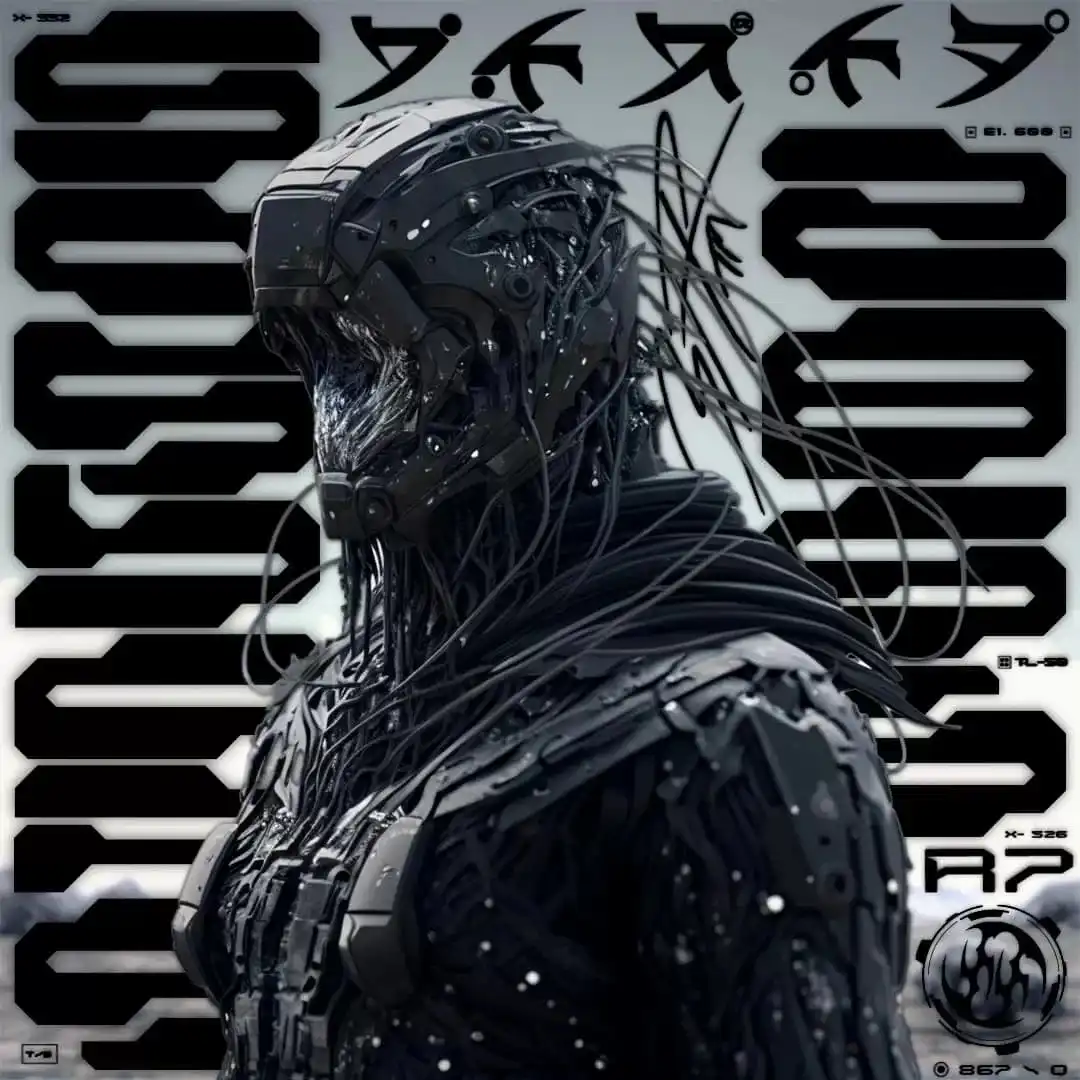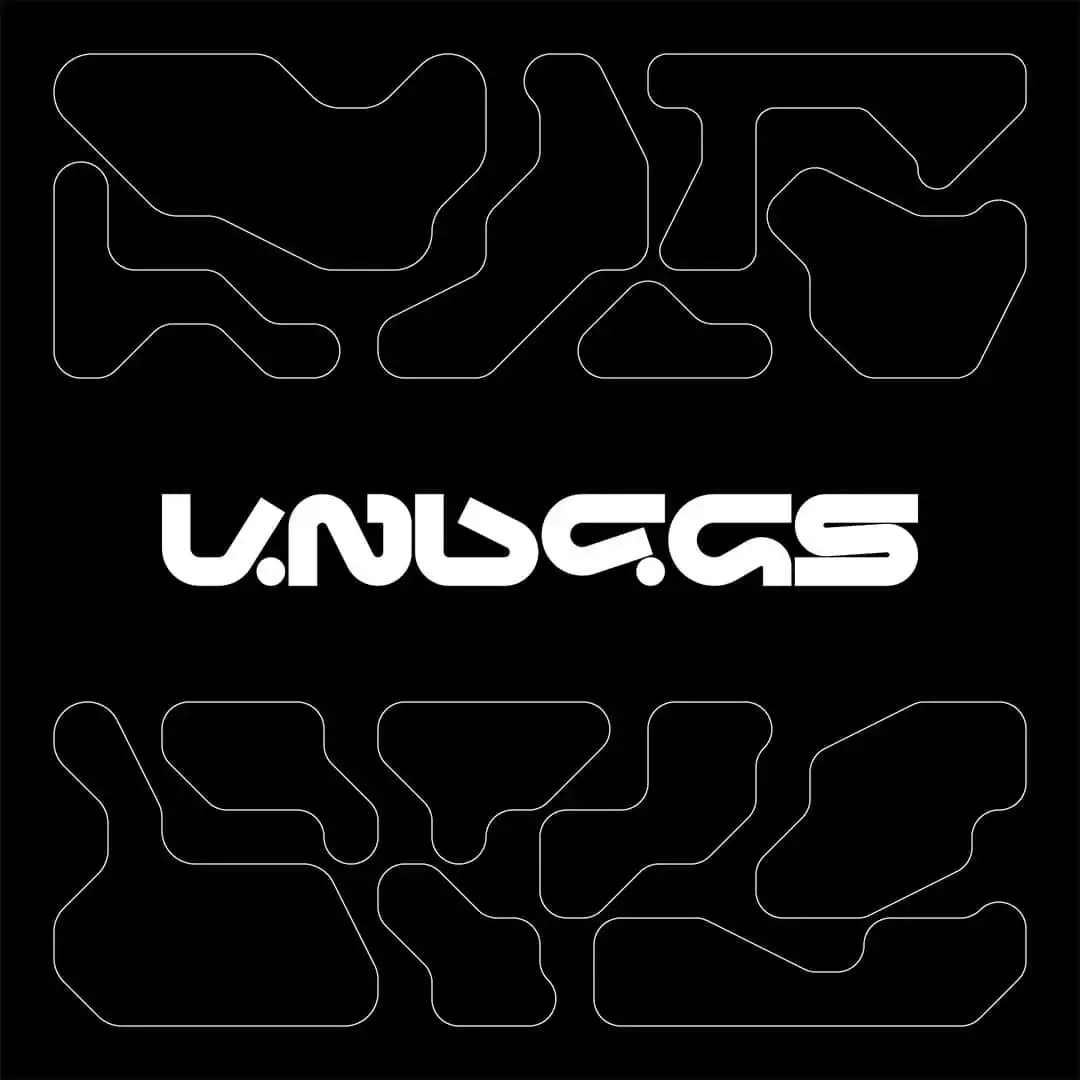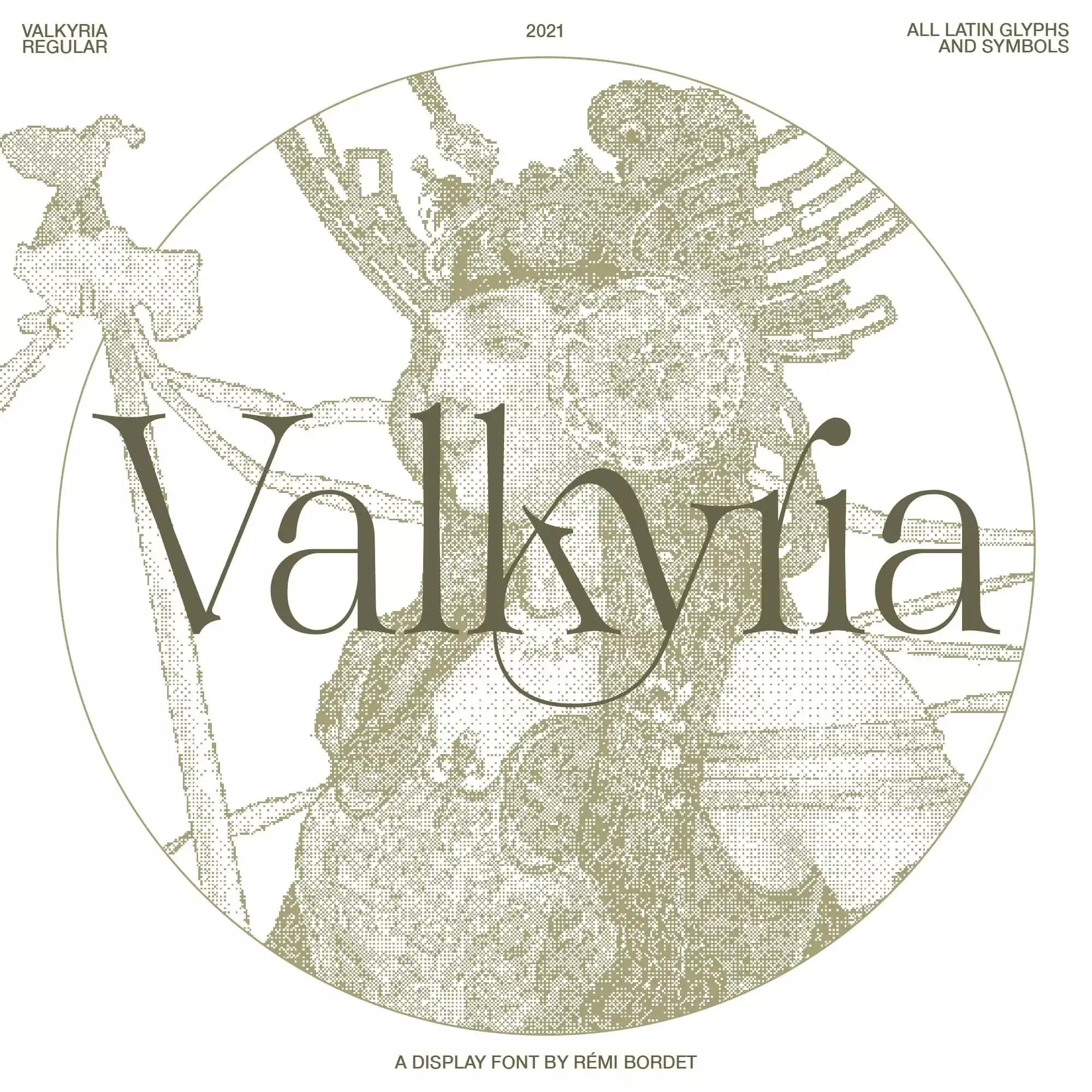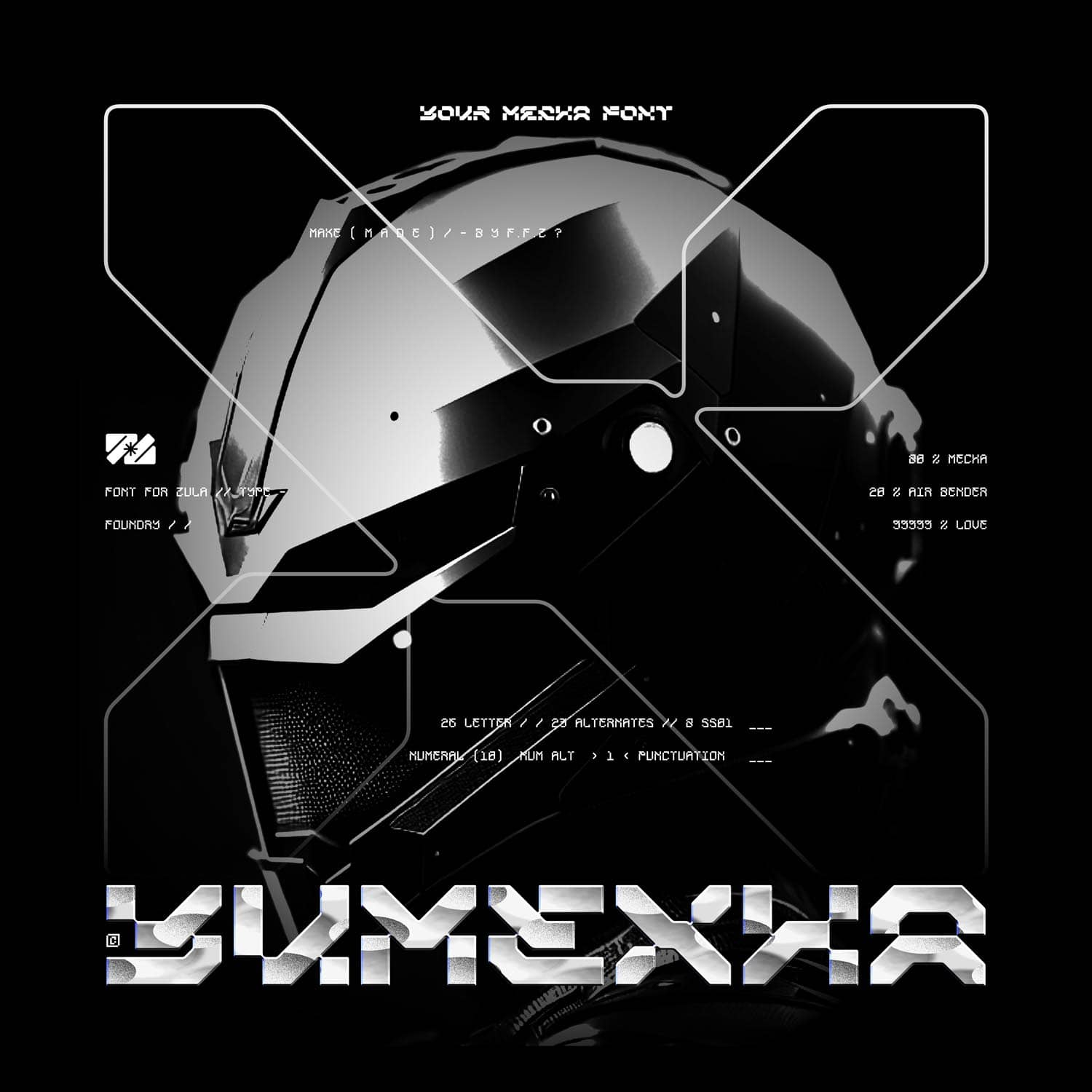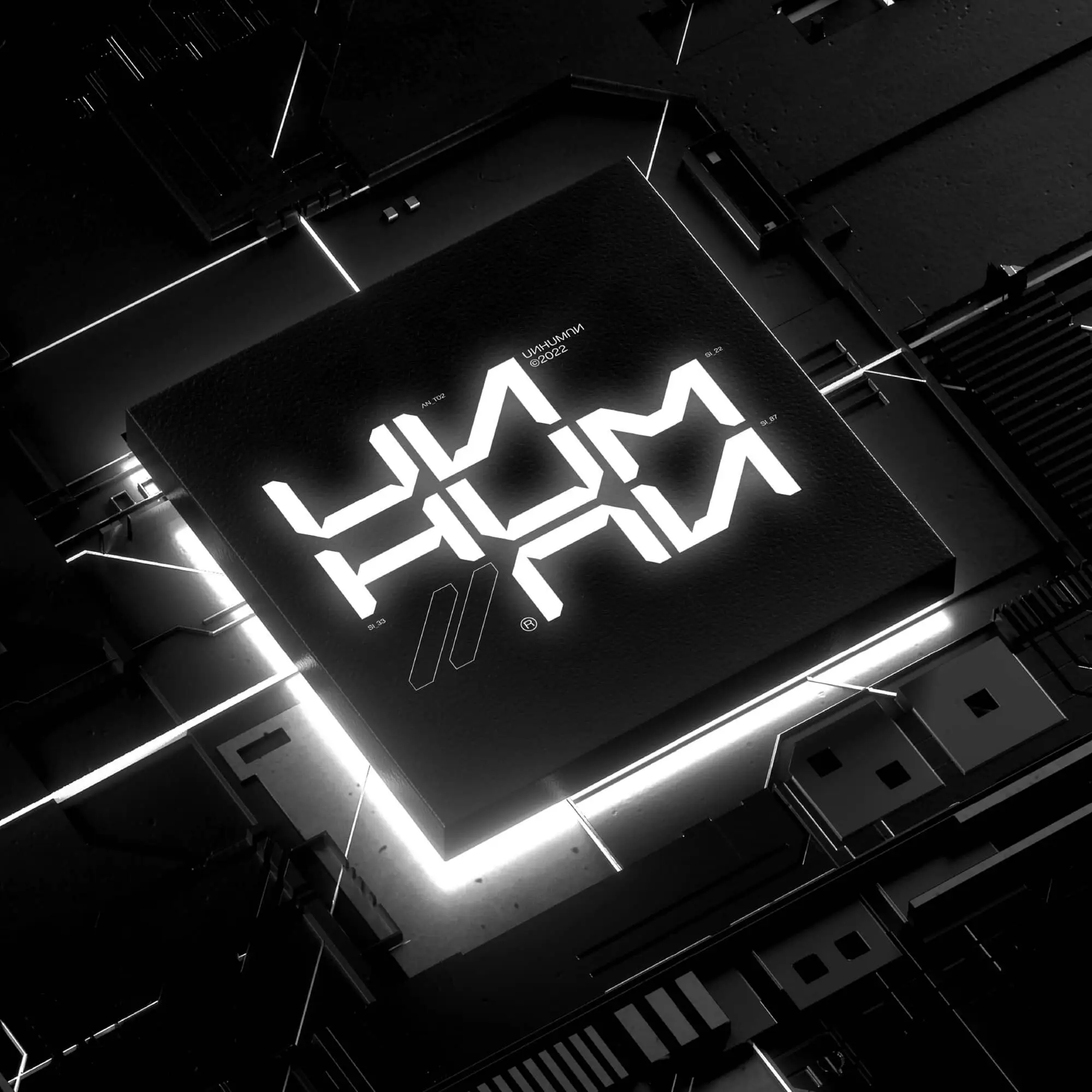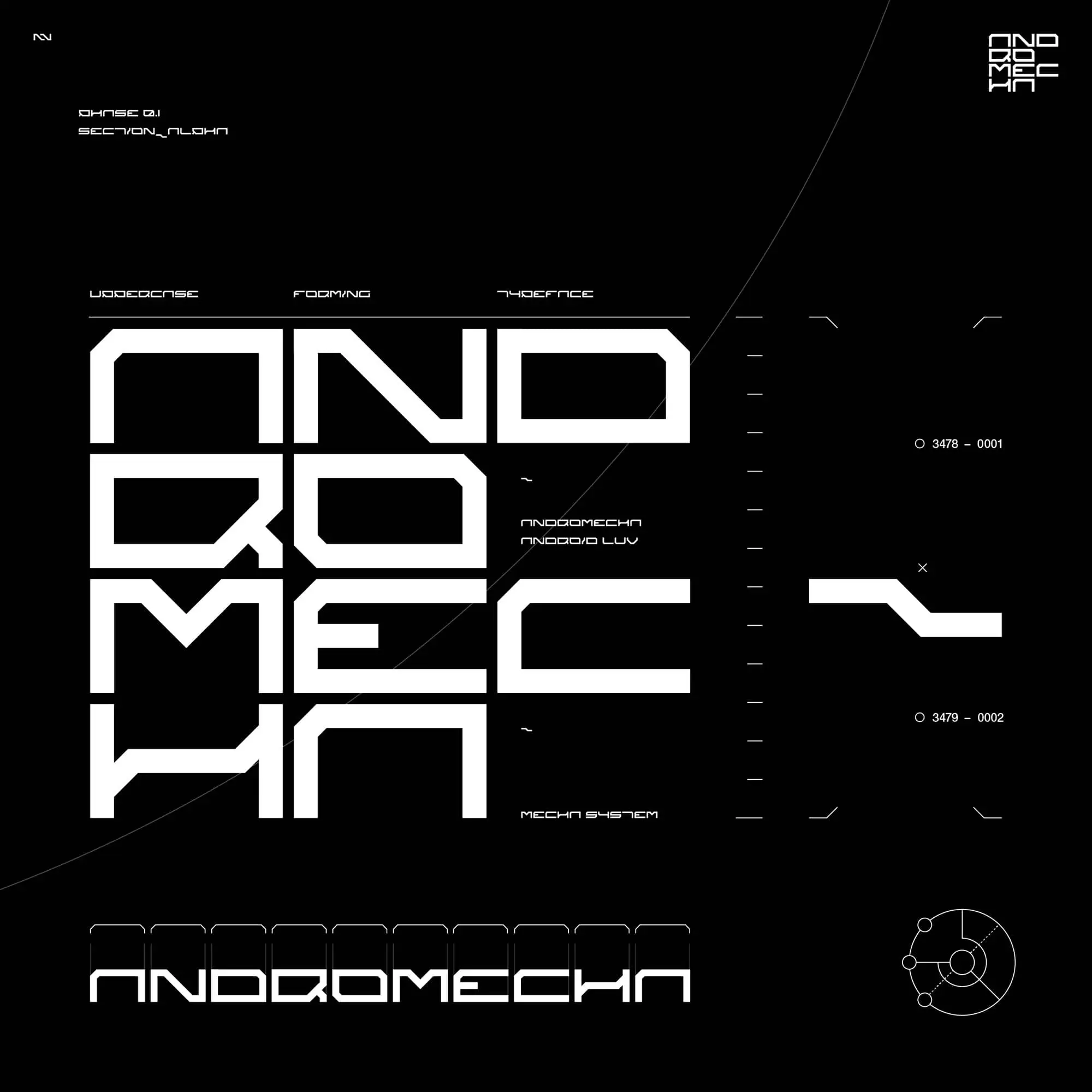
Hey there, fellow creative! 🎨✨ If you’re on the hunt for fresh, futuristic, and downright gorgeous design assets, you’ve landed in the right place. Today, we’re diving deep into the studioinnate Collection Part 1 — a treasure trove of fonts, textures, mockups, and brushes that’ll take your projects from “meh” to “WOW!” 🚀 Buckle up, because we’re about to explore 20 incredible products that scream innovation and style!
Why Use These StudioInnate Design Assets?
StudioInnate is the go-to creative powerhouse for designers who want that perfect blend of cyberpunk edge, vintage charm, and futuristic flair. 🖌️ Whether you’re building a brand, designing a poster, or crafting digital art, these assets save you time, elevate your work, and make you feel like a true pro. Plus, instant downloads mean you can start creating in minutes! ⏱️✨
Top 20 StudioInnate Collection Picks
Andromecha
Meet Andromecha, a stunning display typeface that’s pure sci-fi magic! 🤖✨ With sleek uppercase and lowercase characters, it’s perfect for logos, headlines, and posters that need a futuristic kick.
Halftones
Say hello to 122 seamless halftone patterns and brushes! 🎨📸 Perfect for adding retro, vintage vibes to illustrations, posters, and digital art — instant download, endless creativity!
UNHUMAN
Unleash the alien within! 👽🌌 UNHUMAN fuses tech and artistry for graphics that feel otherworldly and deeply futuristic. Ideal for projects that demand a bold, transhumanist edge.
Premium Mockups, Textures, and Graphic Assets Bundle By studioinnate
The ultimate creative playground! 🎪🎨 This mega bundle is packed with mockups, textures, and graphic assets to supercharge your branding and design projects. Instant access, endless possibilities!
YUMEXHA
YUMEXHA is a futuristic typeface that screams modern creativity! 🚀🖌️ Perfect for gaming titles, eye-catching graphics, and anything that needs a fresh, bold statement.
Vinyl Centrepiece Mockup
Showcase your designs in retro style! 🎵📀 This Photoshop mockup makes your artwork pop like a vinyl record centrepiece. Perfect for impressing clients or jazzing up your portfolio.
Valkyria
Elegance meets edge! 🛡️✨ Valkyria is a stunning font that brings a touch of mythological beauty to logos, posters, and graphic designs. Instant download, instant wow-factor!
UNBEGS
Get your cyberpunk fix with UNBEGS! 🤖💥 Inspired by the 36 Days of Type challenge, this bold, geometric font is perfect for sci-fi projects and anything that needs a futuristic punch.
Ultra Heavy T-Shirt Mockup
Streetwear vibes, unlocked! 👕🔥 This vintage wash t-shirt mockup features dropped shoulders and editable front/back views. Perfect for showing off your apparel designs in style.
Torn Paper
Add raw texture to your art! ✂️📄 This Photoshop brush pack creates realistic torn paper effects that give your digital pieces an authentic, handmade feel.
Sweatpants – Mockup Bundle
Comfy meets creative! 😎👖 This bundle includes three fully customizable Photoshop mockups for sweatpants. Ideal for apparel lines and branding projects that need a cozy vibe.
T-012 Vector Pack
Go cybernetic! 🤖⚡ This vector pack pairs perfectly with the T-012 typeface, offering a treasure trove of geometric shapes and tech-inspired assets.
T-012
Sharp edges meet curved corners in this dystopian typeface! 🖤💻 T-012 brings a high-end cyberpunk aesthetic to tech startups, posters, and bold editorial designs.
Sudo Display
Sleek, modern, and oh-so-smooth! ✨🔤 Sudo Display blends sleek lines with rounded corners for a futuristic elegance that’s perfect for branding and headlines.
Strikt
Modular, bold, and versatile! 🧩🎨 Strikt is a font family that lets you mix and match for striking posters, album covers, and editorial layouts. Creativity unleashed!
Sodra
History meets futurism! 📜🚀 Sodra is a wide antiqua typeface with sharp serifs that gives your designs a unique, timeless yet forward-thinking character.
Slate Texture Pack
Nature meets design! 🪨🌿 This pack includes 36 high-resolution slate textures on transparent backgrounds. Perfect for adding earthy, elegant depth to any project.
Soaked In Ink
Get that grunge vibe! 🖋️💦 This texture pack adds a beautifully distressed, inky feel to your designs. Perfect for artists who love raw, edgy aesthetics.
Scythe
Square serif magic with an artistic edge! 🌾✨ Scythe’s unique shapes are inspired by the elegant curve of a blade—perfect for bold, eye-catching typography.
SCYBORG-2056
Welcome to the year 2056! 🤖🌌 This Neo-industrial display typeface features 34 experimental sizes with alien-like shapes. Perfect for vertical sci-fi environments and futuristic layouts.
And there you have it — 20 jaw-dropping design assets from the studioinnate Collection that are guaranteed to ignite your creativity! 🔥 Whether you’re into cyberpunk fonts, vintage textures, or sleek mockups, this collection has something for every digital artist out there. So go ahead, grab your favourites, and let your imagination run wild! 🚀🎨 Don’t forget to check out the studioinnate store for even more gems!